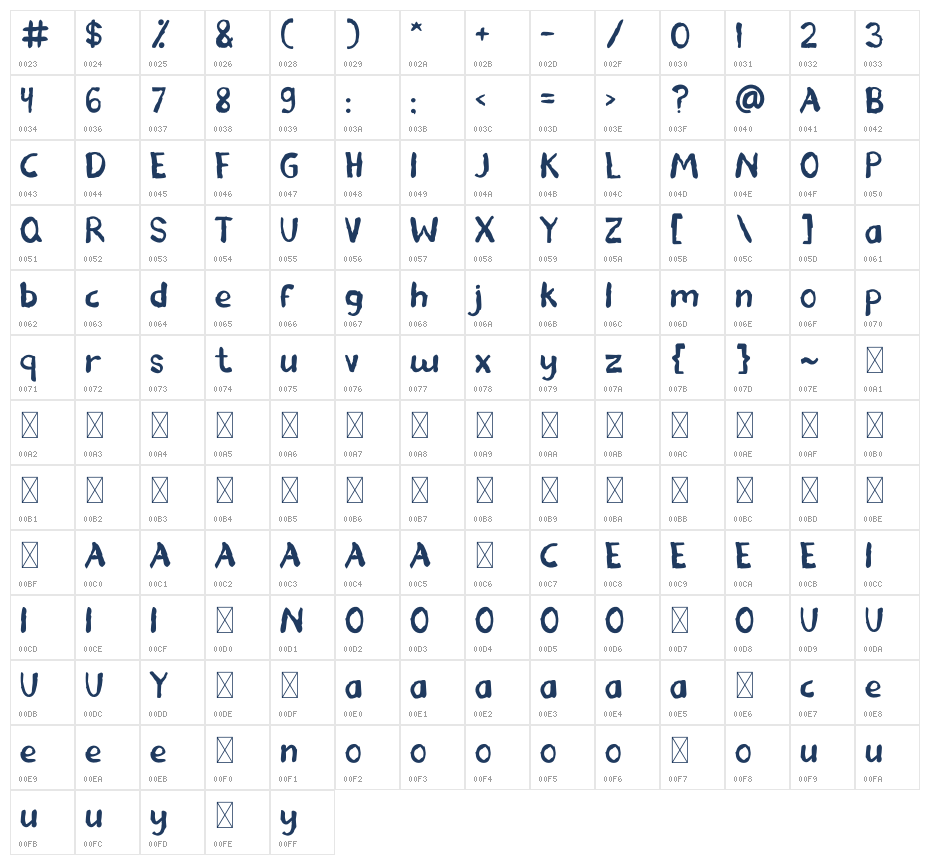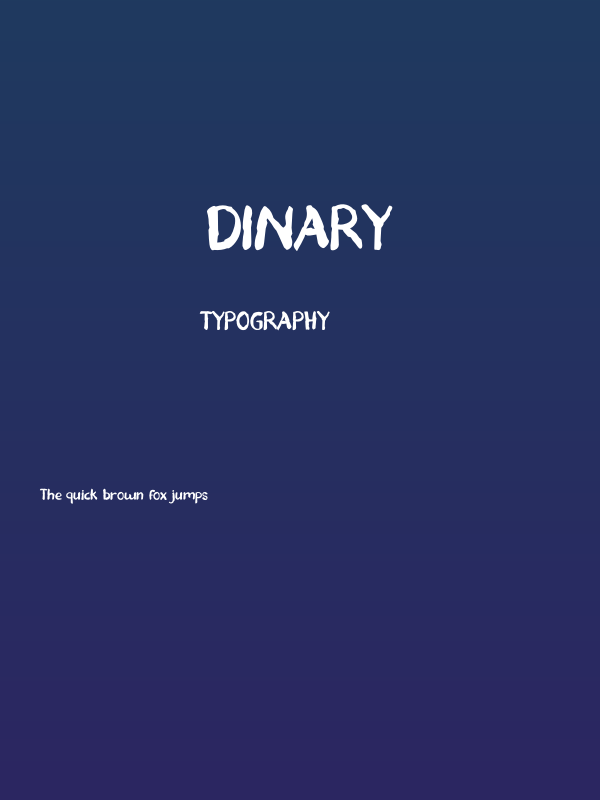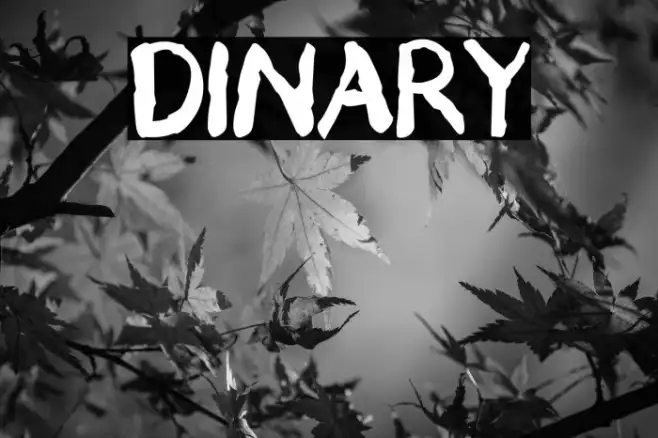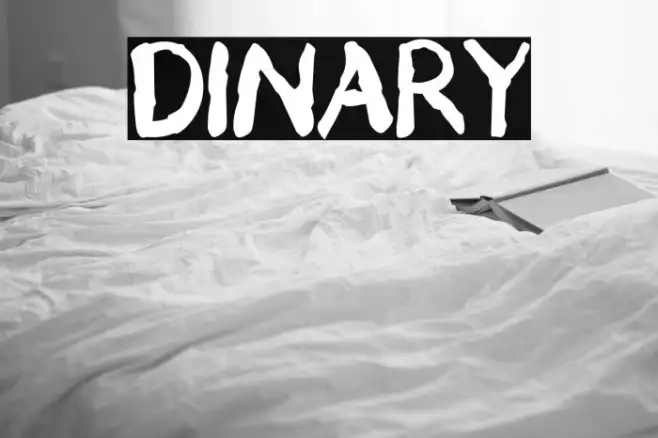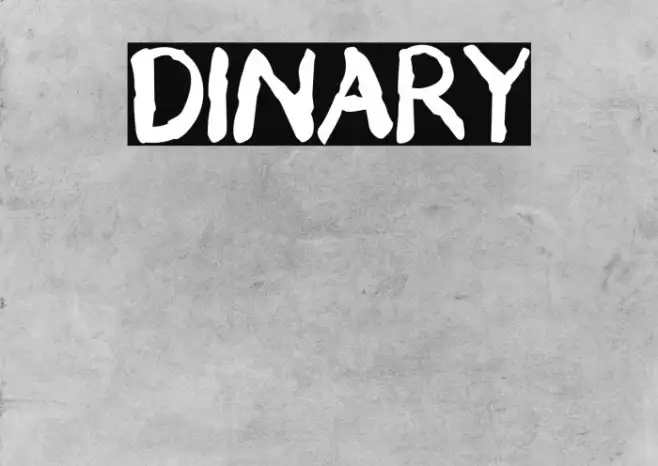
DINARY Font
DINARY Description
A playful, handwritten style font with irregular, brush-like strokes that give it a casual and informal appearance.
| Use Case | Headlines, Body text, Logos, Creative projects |